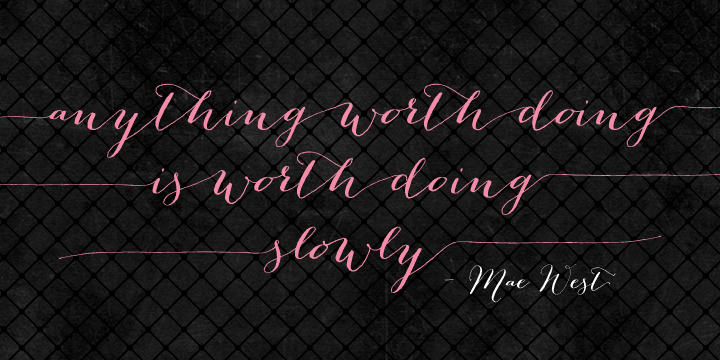
Bombshell Pro
Bombshell Pro is a fanatical hand-calligraphy font created by Emily Conners. This incredible font includes long established connections between letters to facilitate you come up with stunning headings. For signature looks, this font makes for an ideal oBombshell Proption.
The latest version of this font features over eight hundred glyphs! It also comes with the much desired “run-on” letter connections. This helps you fashion some realistic hand-calligraphy!